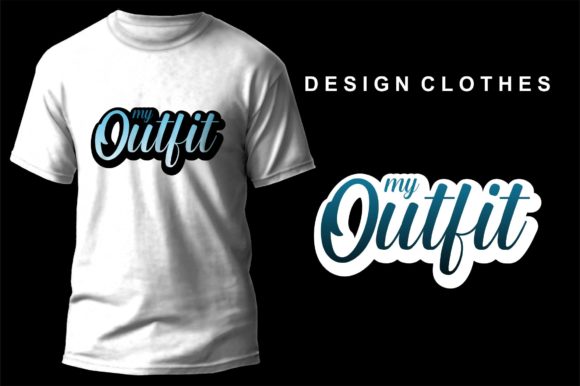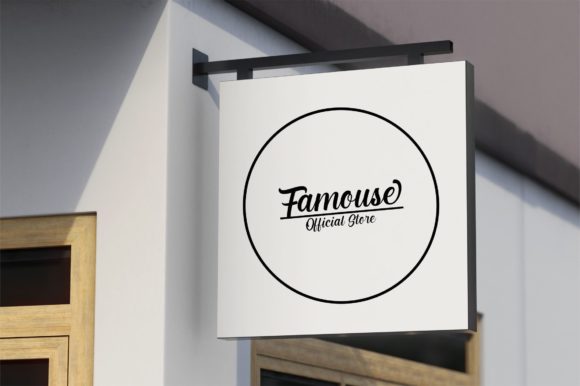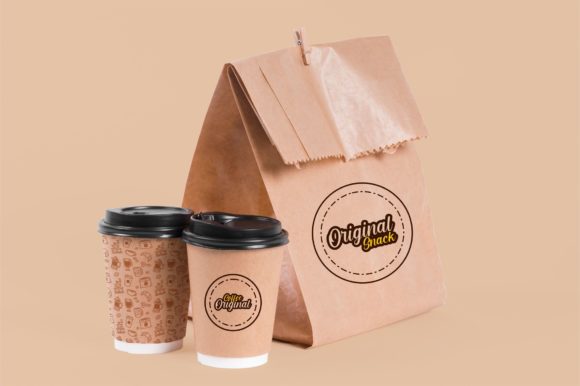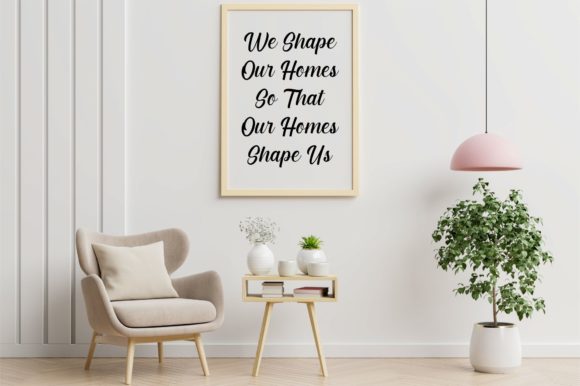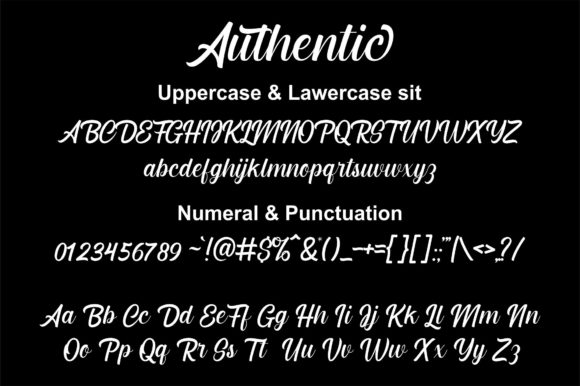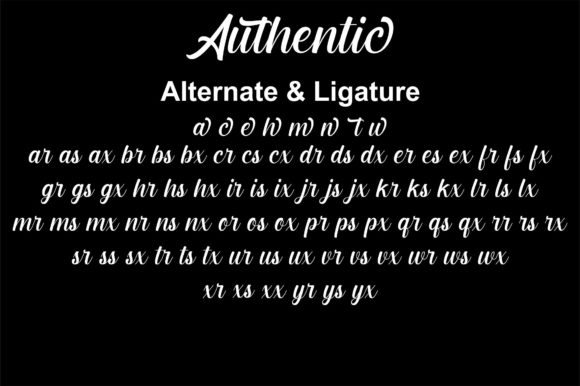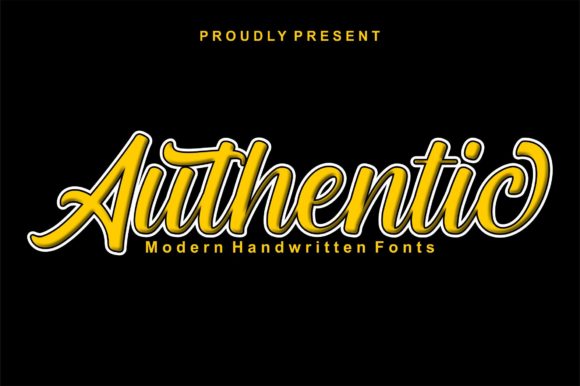
Discover the Charm of Authentic Font: Elevate Your Designs with Timeless Elegance
In the world of typography, few fonts manage to capture the essence of elegance and timelessness as effectively as the Authentic Font. This beautiful, handwritten font has become a favorite among designers and crafters alike, and for good reason. Its versatility, charm, and extensive features make it an ideal choice for a wide range of design projects, from attractive logos and branding to packaging products and inspiring quotes.
The Beauty of Authentic Font
Authentic Font stands out with its unique, handwritten aesthetic that exudes warmth and sophistication. Each letter is carefully crafted to convey a sense of personal touch, making it perfect for designs that require a human and approachable feel. Whether you’re creating a logo, a brand identity, or simply looking to add a personal touch to your packaging, Authentic Font brings a level of elegance and refinement that’s hard to match.
PUA Encoding: Unlocking Full Creative Potential
One of the key features that sets Authentic Font apart is its PUA (Private Use Area) encoding. This means that the font includes a wide range of glyphs and swashes, accessible with ease, allowing designers to experiment with various stylistic variations. PUA encoding ensures that you have the flexibility to customize your text, adding flourishes and unique touches that make your design truly stand out. This feature is particularly valuable for professionals who understand the importance of having a diverse toolkit at their disposal.
The versatility of Authentic Font is one of its most compelling attributes. Here are just a few examples of how this font can elevate your design projects:
• Logos and Branding: Create memorable and impactful logos that reflect your brand’s personality. Authentic Font’s elegant and distinctive style ensures that your brand stands out in a crowded marketplace.
• Packaging Products: Add a touch of sophistication to your product packaging. Whether it’s for a boutique clothing line, artisanal foods, or handmade crafts, Authentic Font lends a premium feel to any product.
• Quotes and Typography: Bring quotes to life with a font that adds emotion and depth. Authentic Font’s beautiful handwriting style makes it perfect for posters, social media graphics, and inspirational content.
Why Choose Authentic Font?
With so many fonts available, why should Authentic Font be your go-to choice? Here are a few reasons:
• Timeless Appeal: Unlike trendy fonts that may quickly become outdated, Authentic Font boasts a timeless quality that ensures your designs remain relevant for years to come.
• Easy to Use: Thanks to its PUA encoding, you can easily access a wide range of glyphs and swashes, making it simple to create unique and customized designs.
• High Versatility: Suitable for a broad spectrum of projects, from digital content to print materials, Authentic Font adapts seamlessly to different design needs.
Authentic Font is more than just a font; it’s a design tool that offers endless possibilities for creativity and expression. Its beautiful, handwritten style, combined with the flexibility of PUA encoding, makes it an invaluable asset for designers and crafters looking to create stunning and impactful designs. Whether you’re working on a logo, branding, packaging, or quotes, Authentic Font provides the perfect blend of elegance, versatility, and charm. Make the smart choice for your next design project and discover the transformative power of Authentic Font.